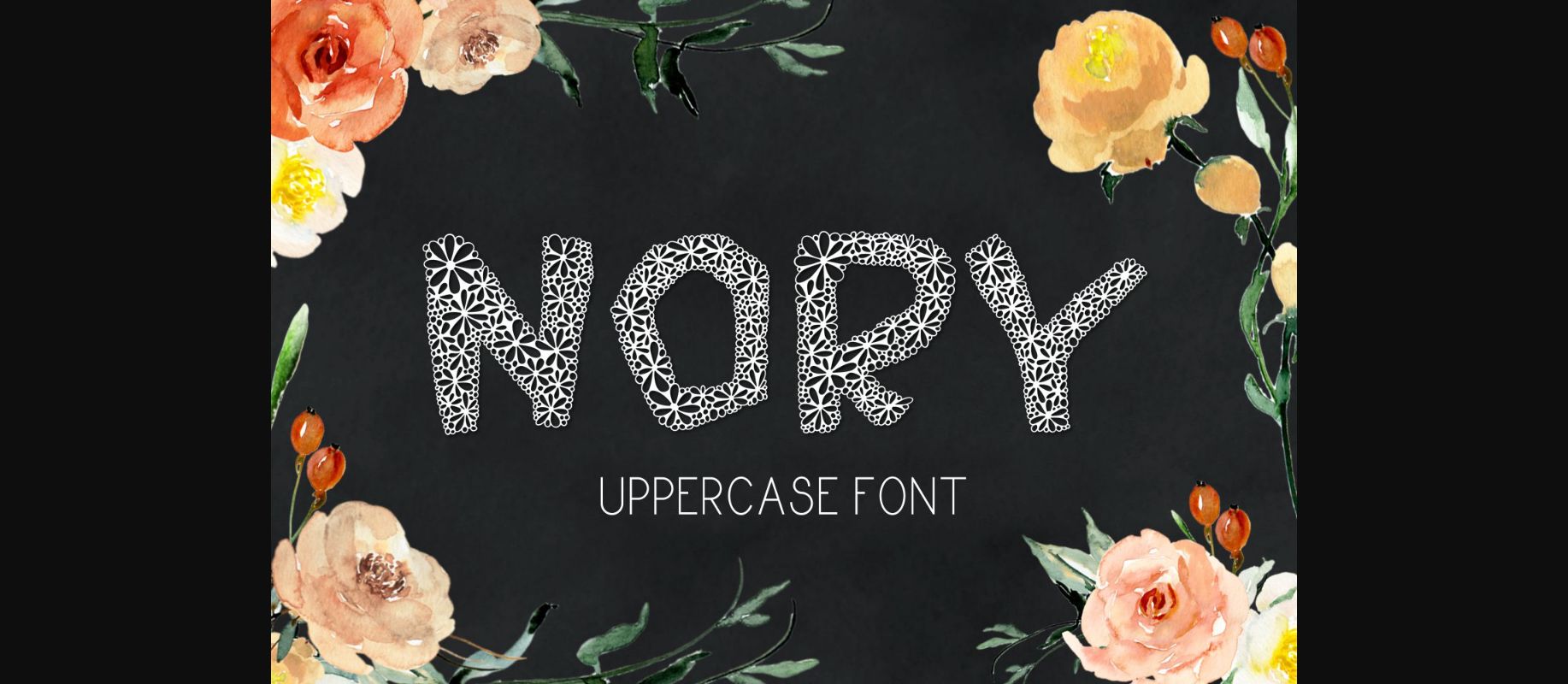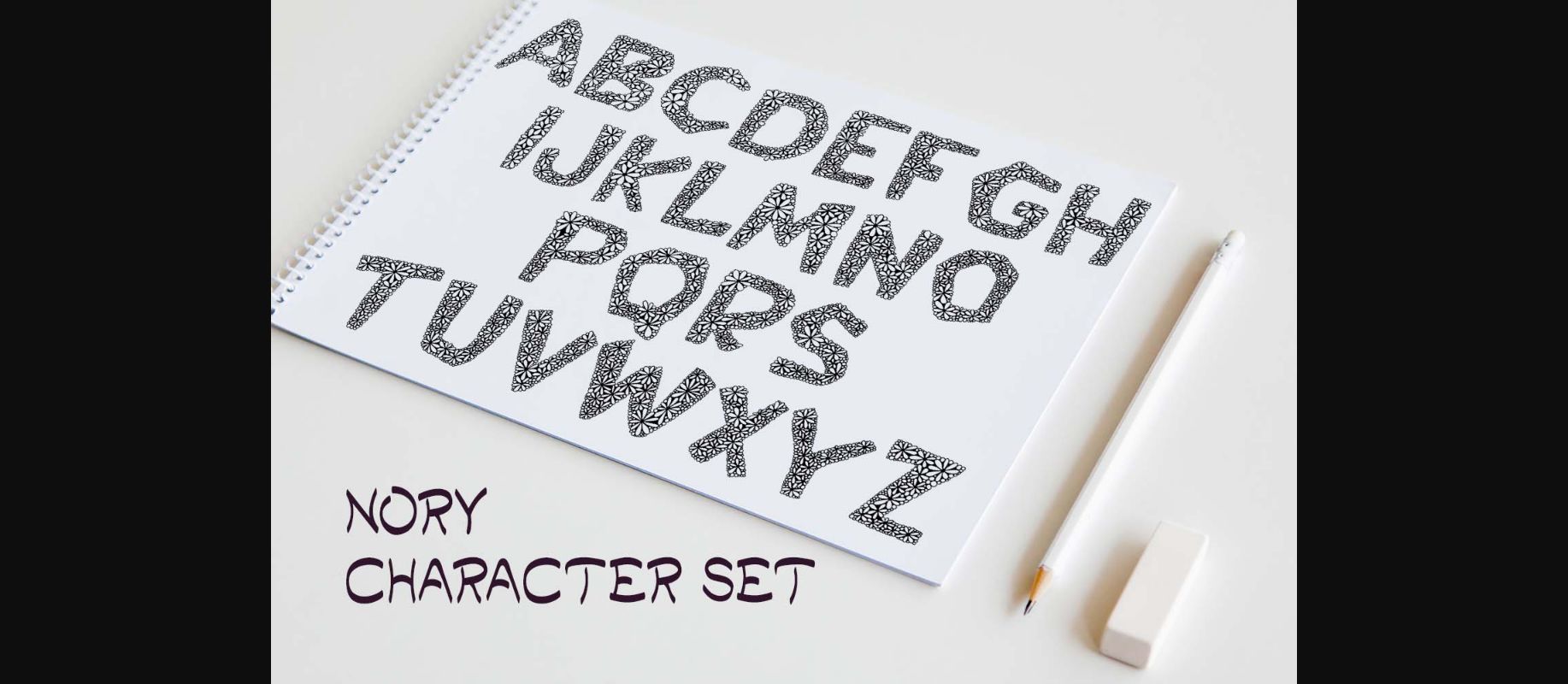
About Nory Font
Nory is a unique and beautiful decorative font, featuring flower ornaments. Whether you’re looking for fonts for Instagram or calligraphy scripts for DIY projects, this font will turn any creative idea into a true piece of art!